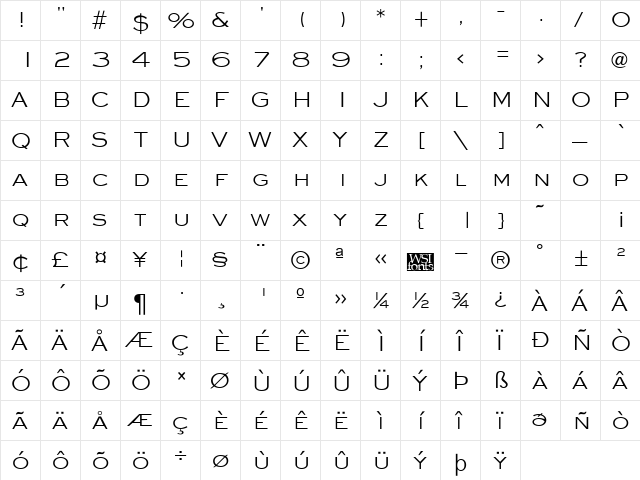
Eyechart Regular
Design Context for Eyechart Typeface
Eyechart offers clean, dependable letterforms without strong stylistic allegiance, making it a practical choice for designers who need flexibility.